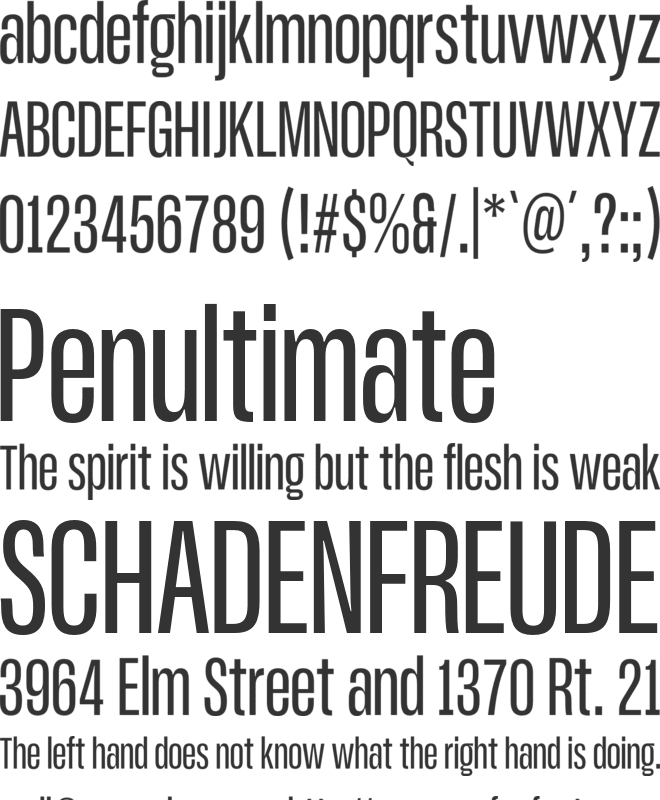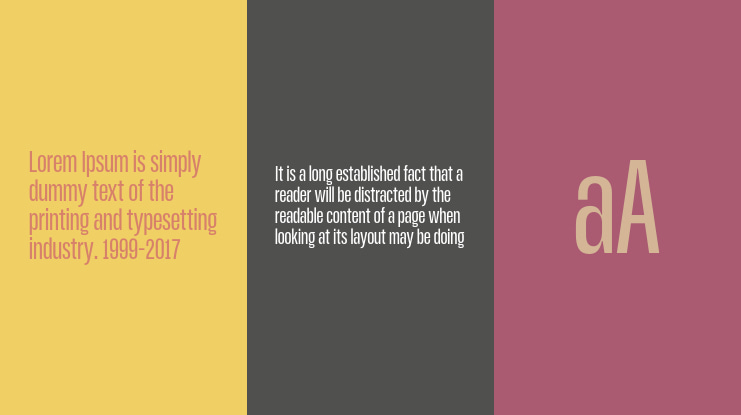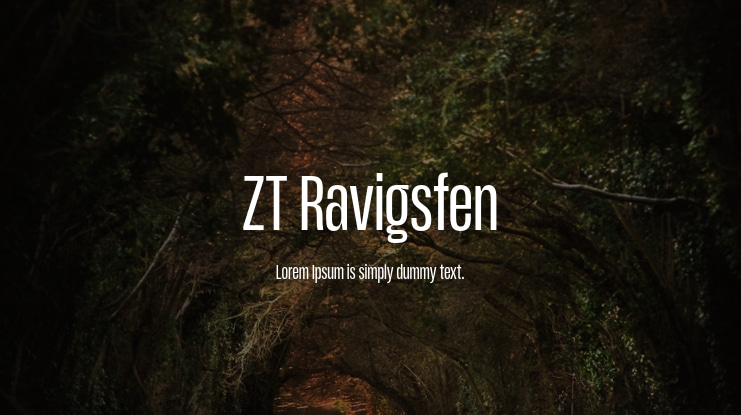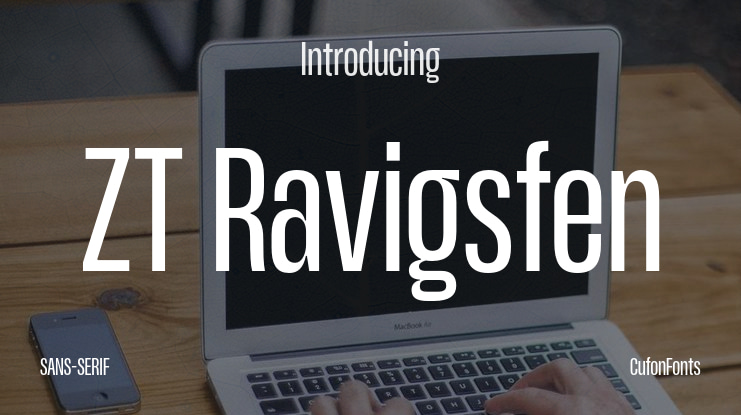
ZT Ravigsfen Font
Introducing ZT Ravigsfen, our new flagship font that offers unlimited flexibility for any design project. With 27 Styles and 9 weights ranging from fine thin to deep black, ZT Ravigsfen provides a wide range of options to suit your needs. Its unique alternative style, featuring a center parting, adds an air of mystery and wonder to your designs. Plus, we're offering three free styles, allowing you to add a touch of magic to your projects.